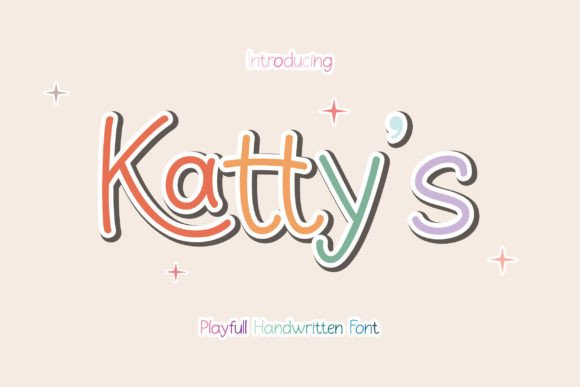
Prepare to be captivated by Kattys, a script font family that emanates a sense of joy and playfulness. Designed with a carefree spirit, Kattys is a breath of fresh air amidst the mundane, offering a unique and lighthearted touch to your creative endeavors.
Imagine your designs adorned with the charm of Kattys' handwritten style, exuding warmth and authenticity like a warm embrace. Its organic flow and delicate strokes add a personal touch to logos, branding, invitations, and social media posts. With Kattys, your creations will radiate a sense of genuine connection and charm.
Step into a world of endless creative possibilities with Kattys. Its versatility shines in a myriad of applications, from playful packaging designs that evoke delight to eye-catching headlines that demand attention. Kattys effortlessly elevates your projects, transforming them into captivating expressions of your unique vision.